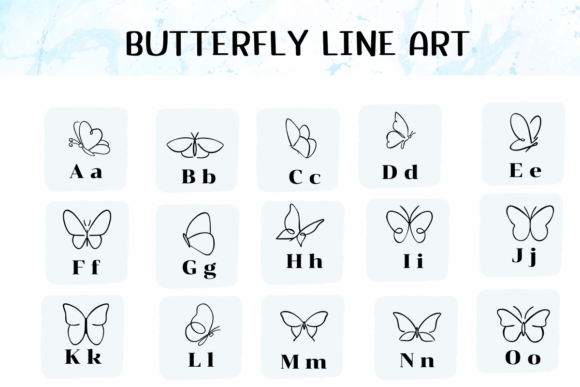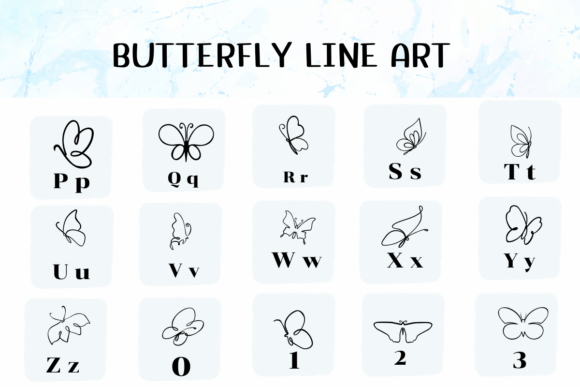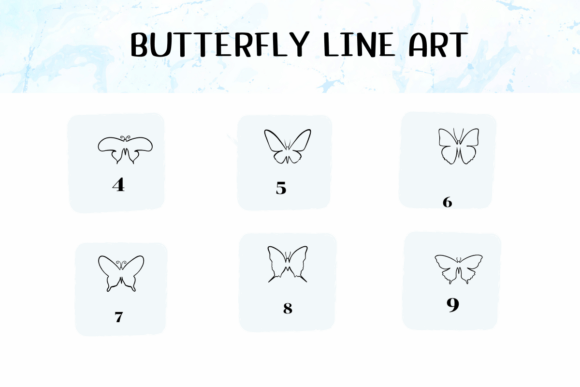
Butterfly Line Art Font
Butterfly Line Art is a dingbat font filled with adorable butterfly designs. Each character showcases a unique and simple butterfly outline, perfect for decorating invitations, crafts, and creative projects. Easy to use and charming, it’s great for adding a whimsical touch!